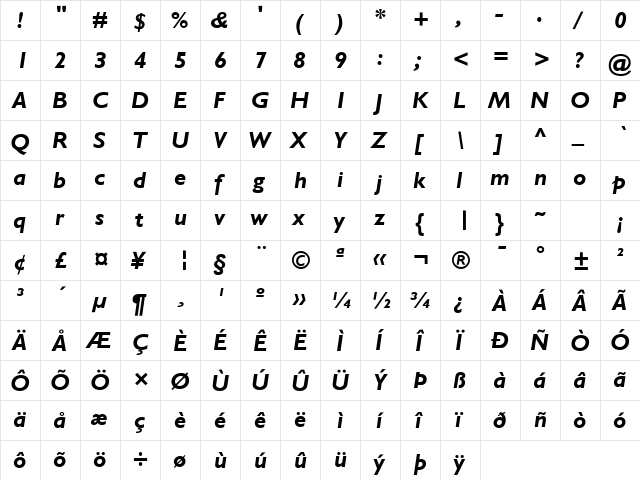
Garrison Sans BOLDITALIC
Design Context for Garrison Sans Typeface
Garrison Sans offers clean, dependable letterforms without strong stylistic allegiance, making it a practical choice for designers who need flexibility. Its italic angle brings a sense of urgency and motion to the letterforms. The heavy weight commands attention and anchors typographic hierarchies.
Pro Tip: Use Garrison Sans for emphasis, pull quotes, and subheadings where its slanted energy can add rhythm to the layout.